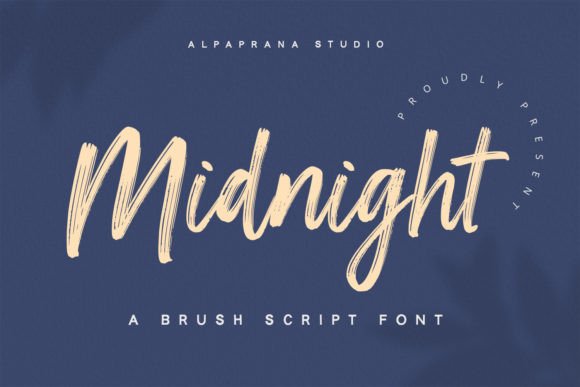
Step into the realm of Midnight Font, a brush script calligraphy font designed to add a touch of elegance and sophistication to your creative projects. Inspired by the allure of a starlit sky, Midnight Font exudes a sense of mystery and charm, captivating your audience with its flowing strokes and graceful curves.
Midnight Font is a versatile masterpiece that shines in a multitude of design applications. Its natural and modern aesthetic makes it the perfect choice for branding, logo design, lettering, and logotype. The font's enchanting presence adds a touch of exclusivity to clothing, posters, magazines, and packaging. Unleash your creativity and witness the transformation of ordinary designs into captivating masterpieces.
Immerse yourself in the boundless possibilities of Midnight Font. Its captivating aura is sure to leave a lasting impression on your customers, clients, and audience. Elevate your designs to new heights and establish a distinct visual identity that sets you apart from the ordinary.
With Midnight Font, you'll find endless opportunities to express yourself uniquely. Its delicate strokes and elegant lines add a touch of sophistication to wedding invitations, certificates, and greeting cards. Its versatility extends to social media posts, digital marketing campaigns, and website designs. Elevate your online presence and engage your audience with visually stunning content that speaks volumes.
Whether you're a seasoned designer or just starting your creative journey, Midnight Font is the perfect companion to bring your visions to life. Its user-friendly nature makes it accessible to all, while its remarkable beauty and functionality will captivate even the most discerning eye.